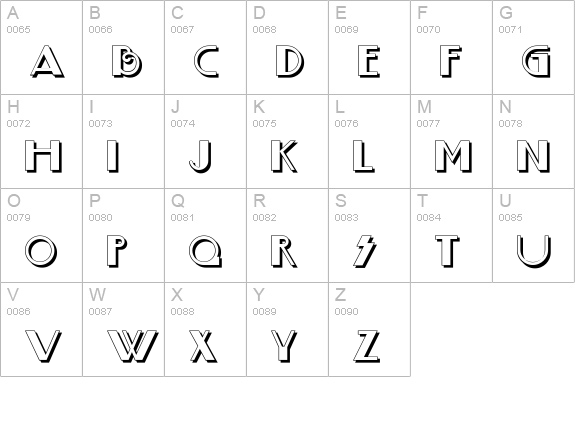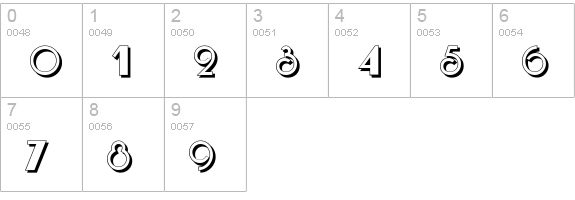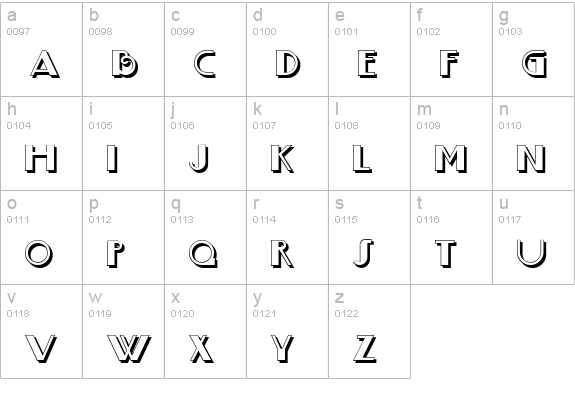
Boogie Nights ShadowNF Font Details
Boogie Nights ShadowNF font is a striking display typeface that exudes retro charm and vintage appeal. With its bold and dramatic shadow effect, this font is perfect for creating eye-catching headlines, posters, and branding materials. The unique design of Boogie Nights ShadowNF font adds a touch of nostalgia and a sense of fun to any project. Best of all, Boogie Nights ShadowNF font is available for free download at FontsMarket.com. This means you can easily add this stylish font to your collection without breaking the bank. Whether you're working on a design project that calls for a touch of retro flair or simply want to experiment with a new font style, Boogie Nights ShadowNF font is a fantastic choice that won't cost you a penny. Download it today and let your creativity shine!